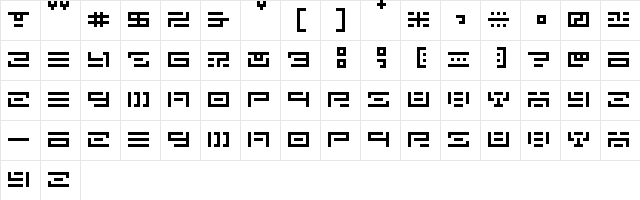
5Fatal Error Regular Free Font
5Fatal Error Regular
Designer: Noah - 11 year old typomaniac
Design Context for 5Fatal Error
5Fatal Error is a composed and adaptable typeface that performs quietly and consistently across a wide range of design contexts.